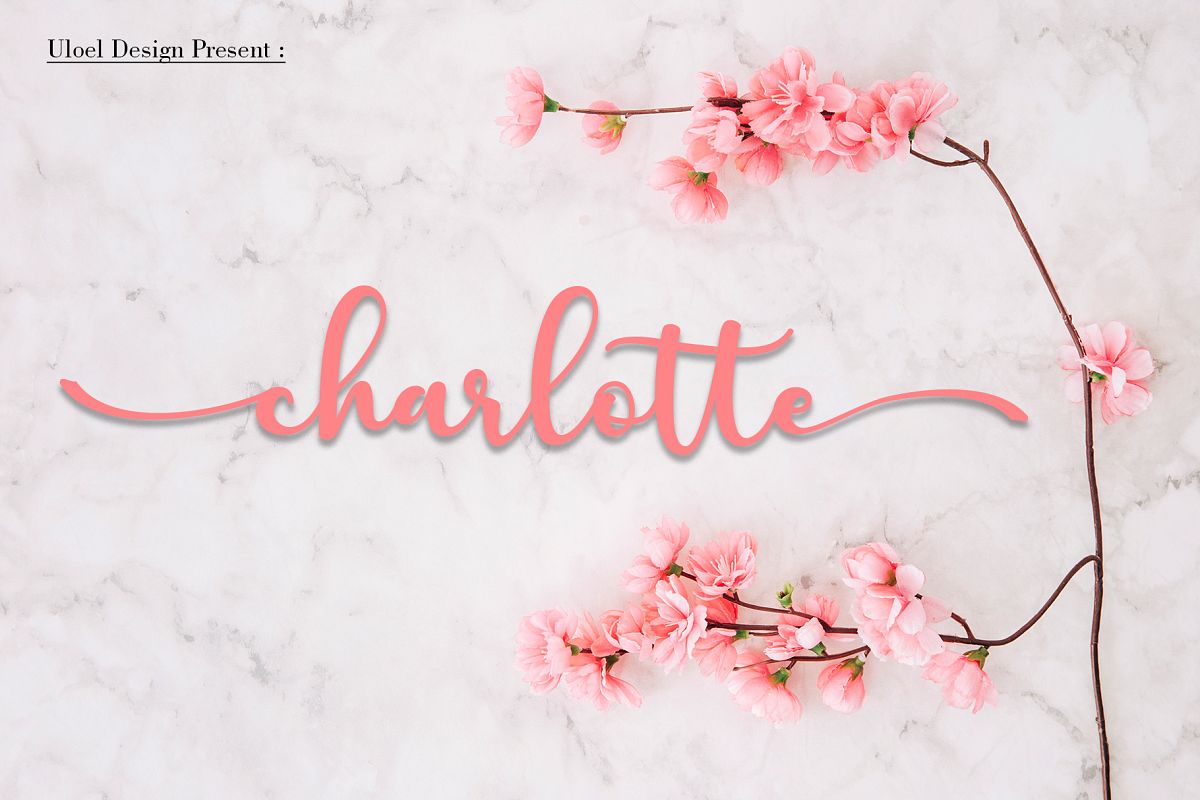
Charlotte
Hello!! Introduce my new font Charlotte Script is a unique blend of classic and modern font. imperfect style ups and downs, like a dance letters, smooth, clean and simple. Perfect for wedding, event, invitation, escort card, table number, header menus, display, logos, slider blog, custom address, stamps, packaging, greeting card, etc.
•     Basic Latin A-Z and a-z
•     Numbers
•     Symbols
•     Stylistic Set
•     Ligatures
•     PUA Encode
•     Multilingual Support